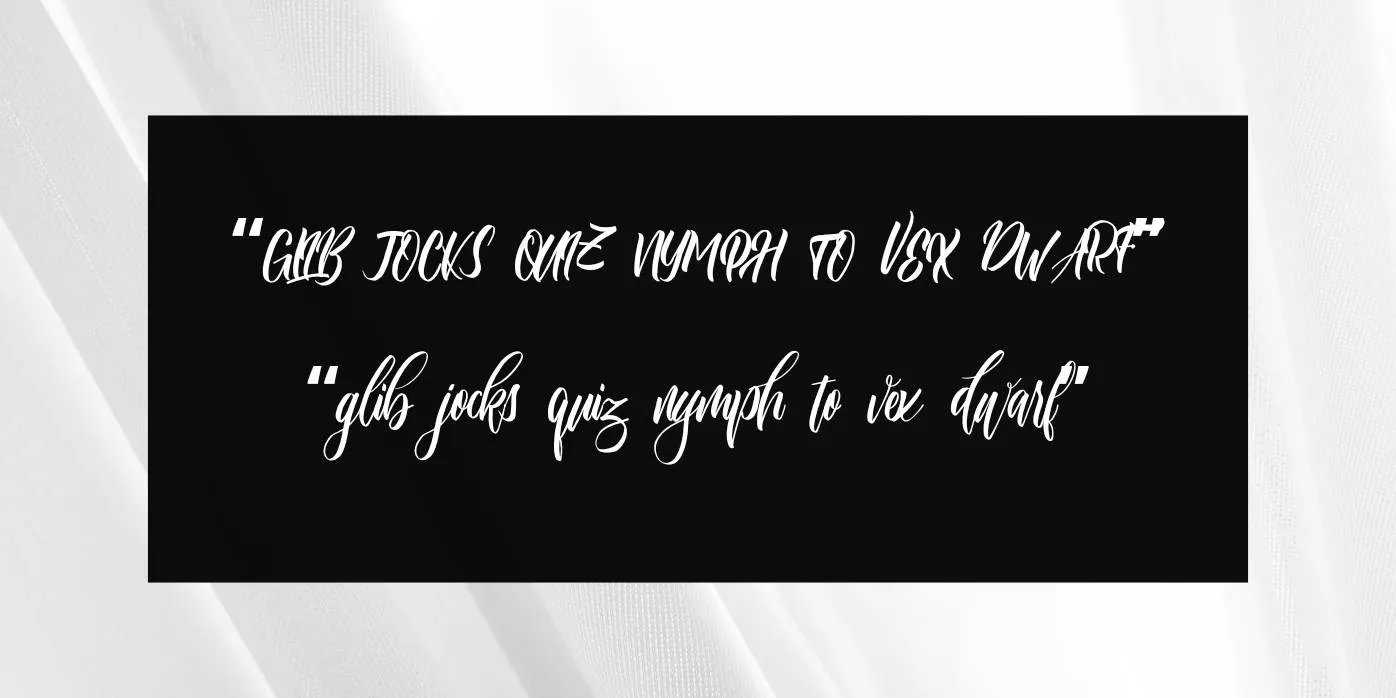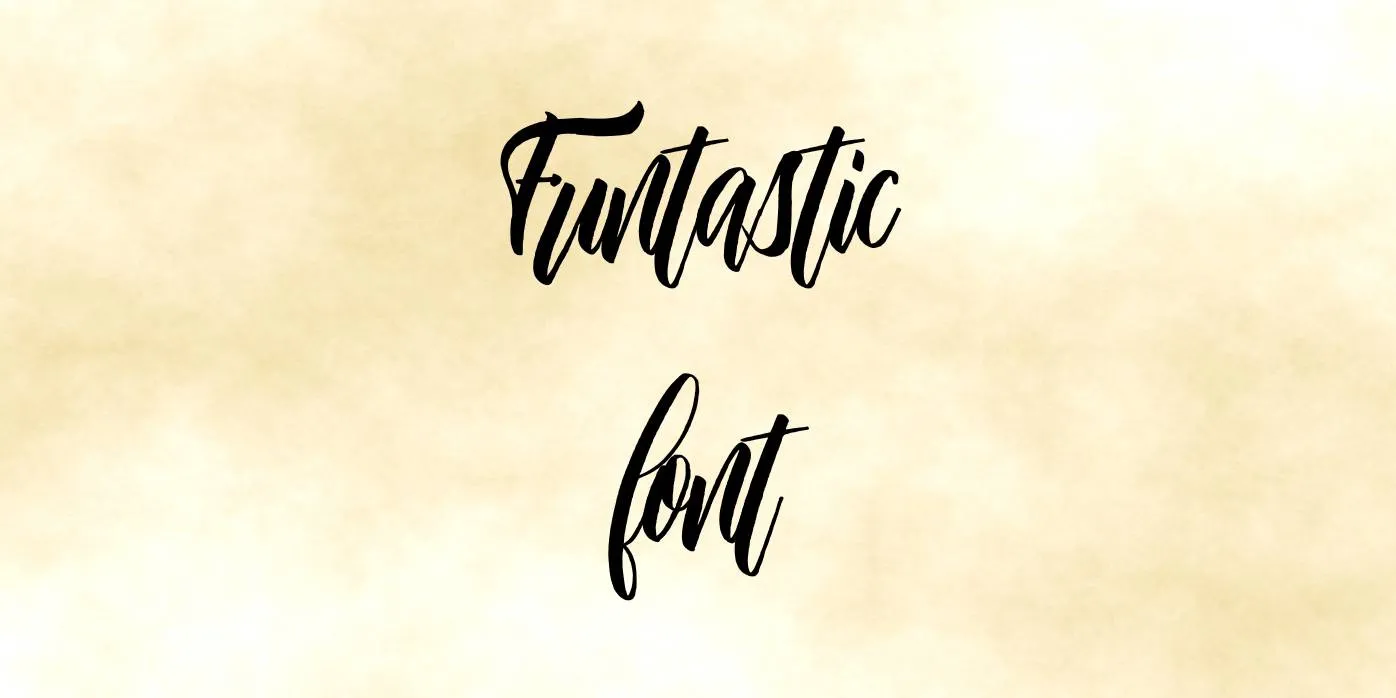
Funtastic Font
You are going to read about the calligraphy type of font. Funtastic Font is a calligraphy type of font that is designed by Rochart Studio. This texture has an amazing 98 unique glyphs. This calligraphy font has one regular style.